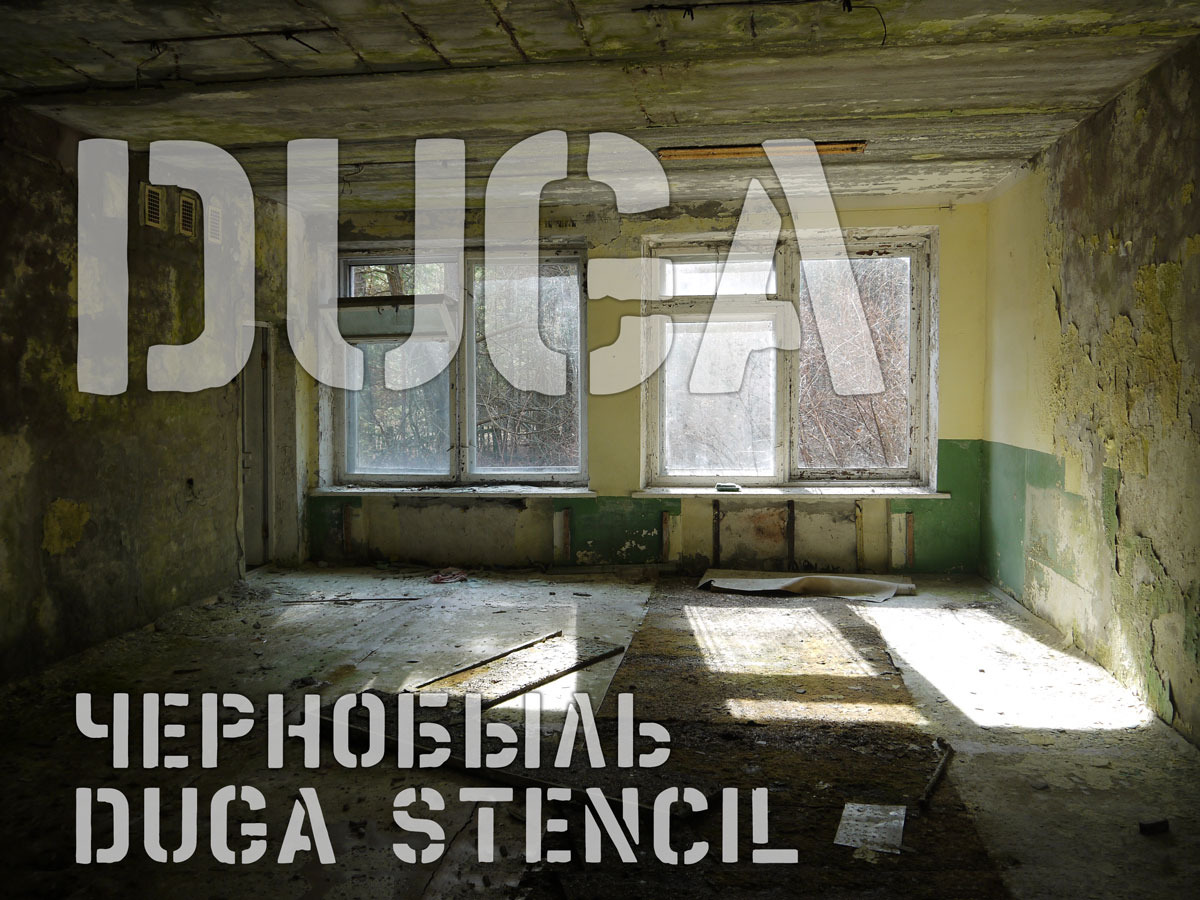
Duga Stencil Font
This is not my usual thing, but on a visit to the Chernobyl Exclusion Zone in April this year, I found an old type stencil on the floor of an abandoned school in Duga. Duga is the site of the infamous over the horizon radar array known as the 'Russian Woodpecker'. The actual stencil can be seen on the floor of the initial example picture and again in the third. The font includes cyrillic characters and can be used for writing in Russian or Ukrainian etc.